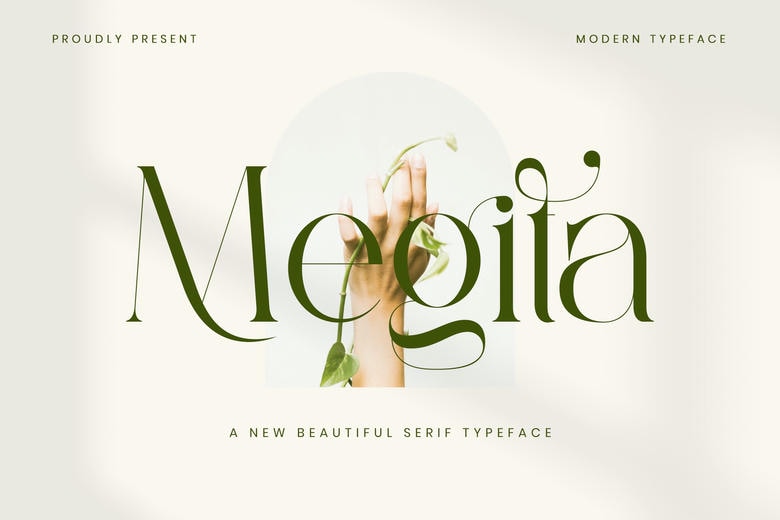
Megita Font
Megita is a stylish serif font, inspired by the famous minimalist logo. It is perfect for the purposes of designing templates, brochures, videos, advertising branding, logos, and more.
Megita Serif Font